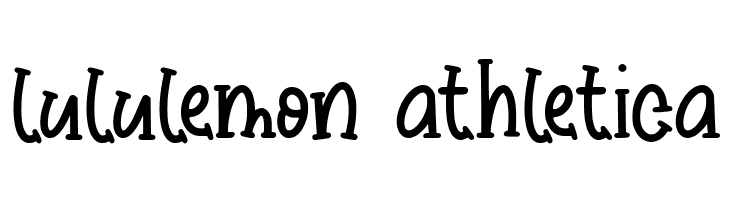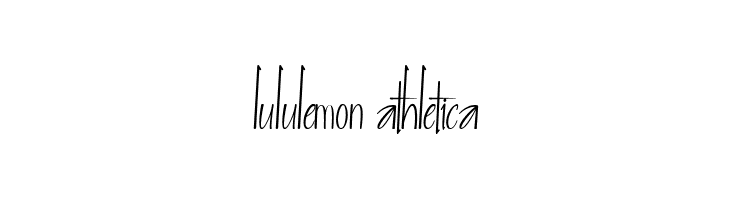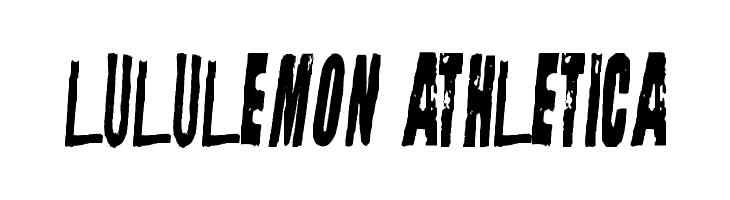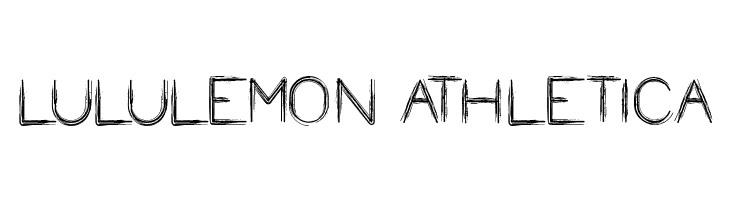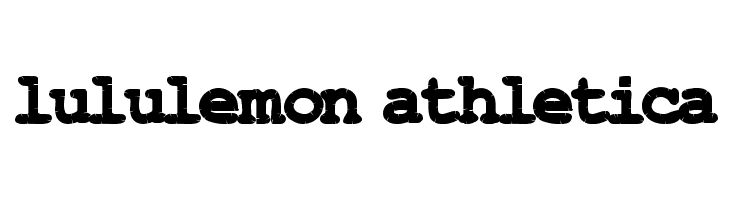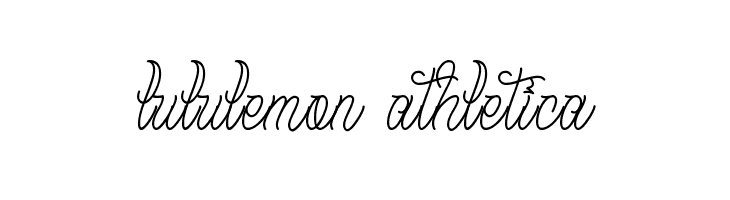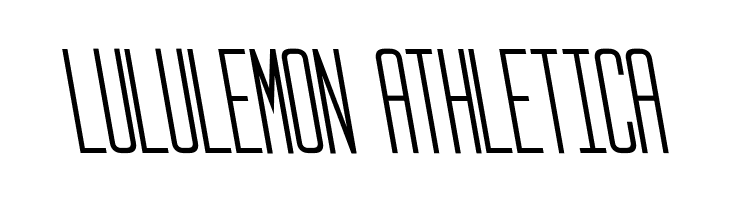
A playful, hand-drawn font with a lively and informal style.
A playful, hand-drawn font with rounded edges and a whimsical style.
A bold, decorative font with a stitched, handcrafted appearance.
A rugged, textured font with a stone-carved appearance.
A bold, slanted, monospaced font with a modern and dynamic style.
A playful, handwritten font with tall, narrow letterforms and smooth curves.
A bold, distressed font with a gritty, textured style.
An ornate and decorative script font with flowing lines and elaborate swashes.
A hand-drawn, sketch-like font with rough, edgy strokes.
A distressed, sketch-like font with a rustic, hand-drawn aesthetic.